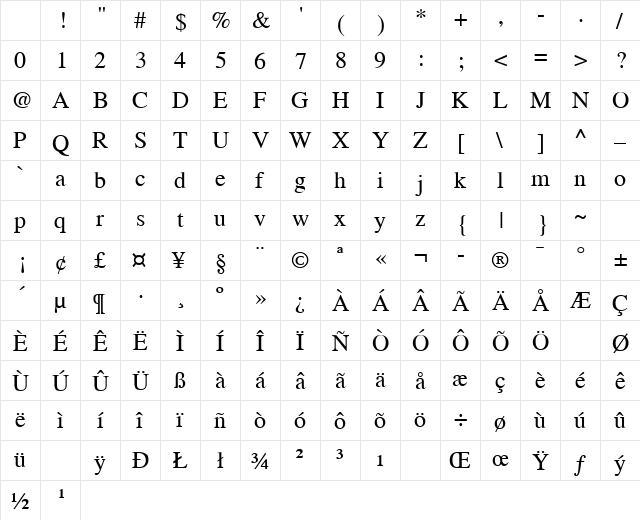
Complete Walkin' The Dog 5 Regular Lite glyph index. Displaying only characters natively supported by Walkin' The Dog 5 Regular Lite font.
Walkin' The Dog 5 is a composed and adaptable typeface that performs quietly and consistently across a wide range of design contexts.